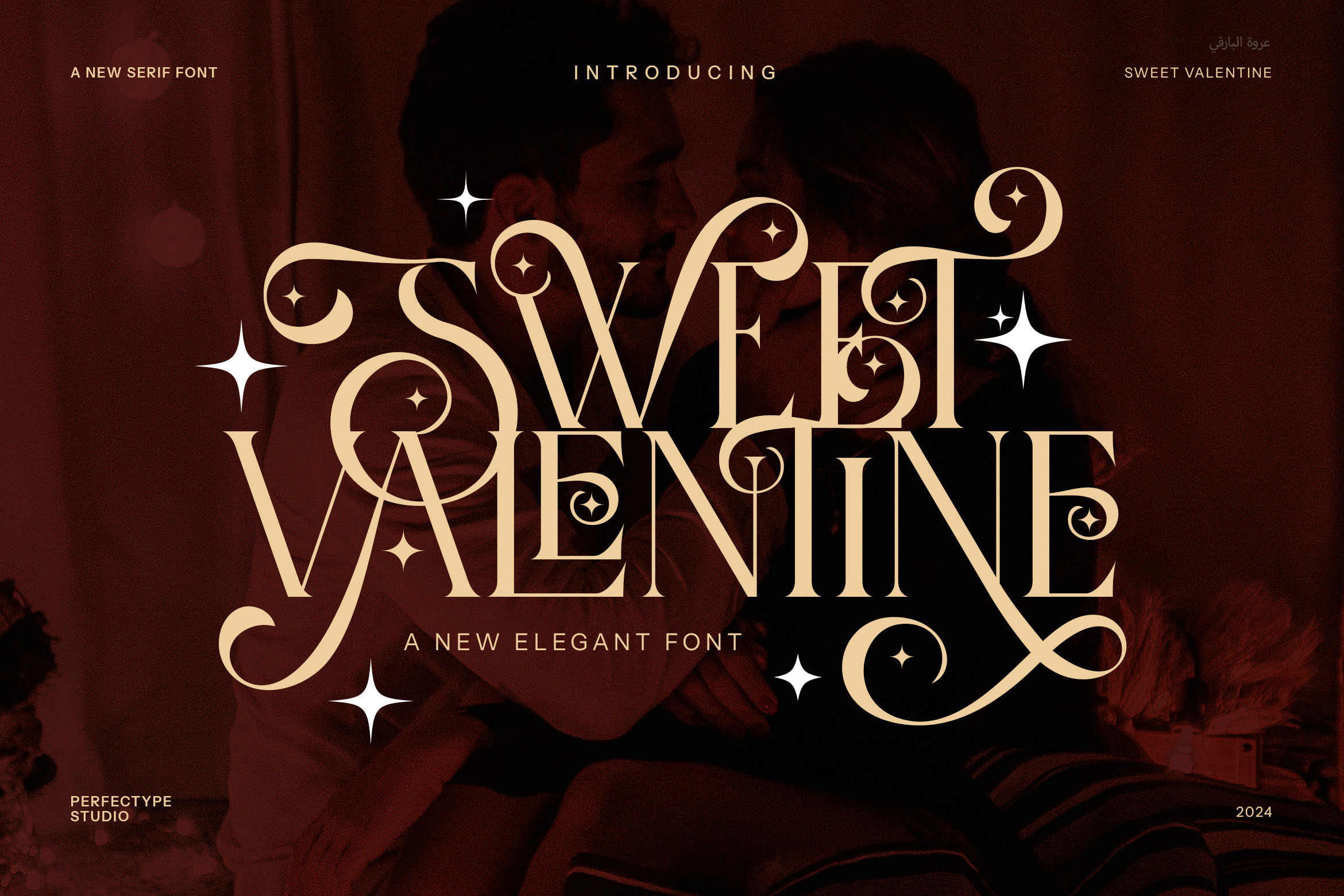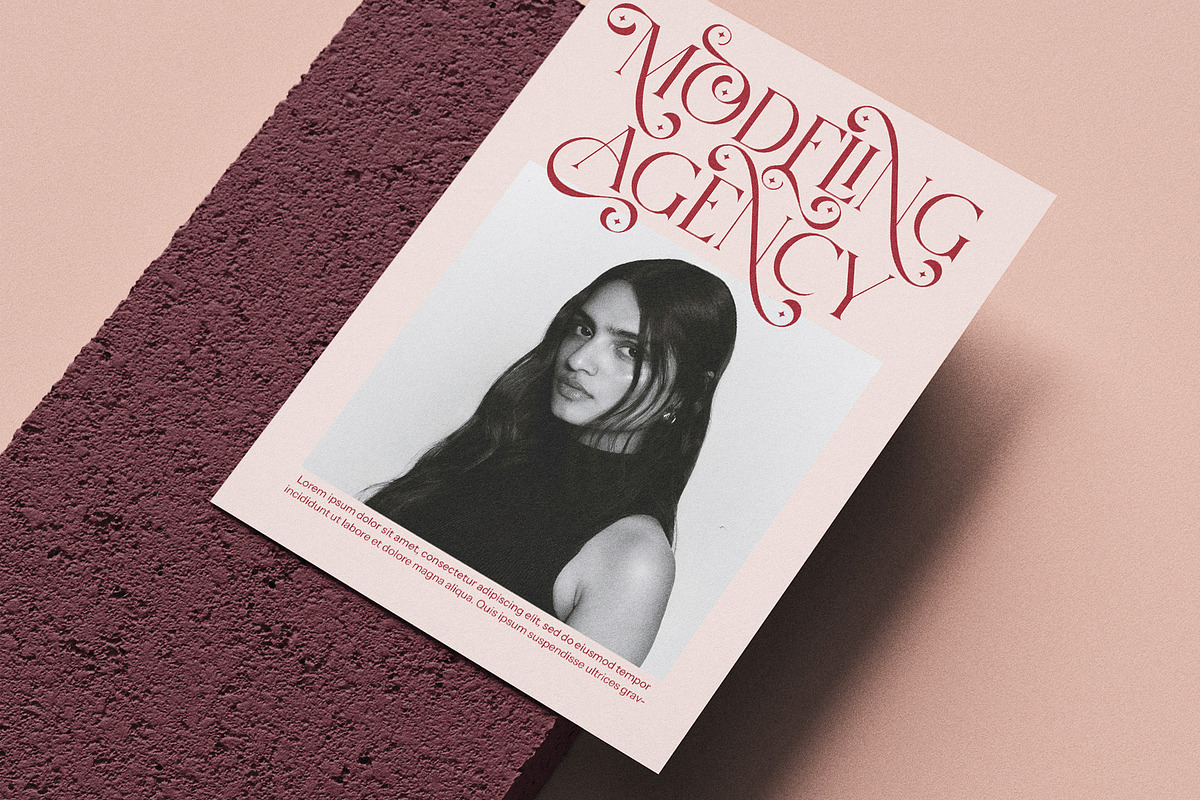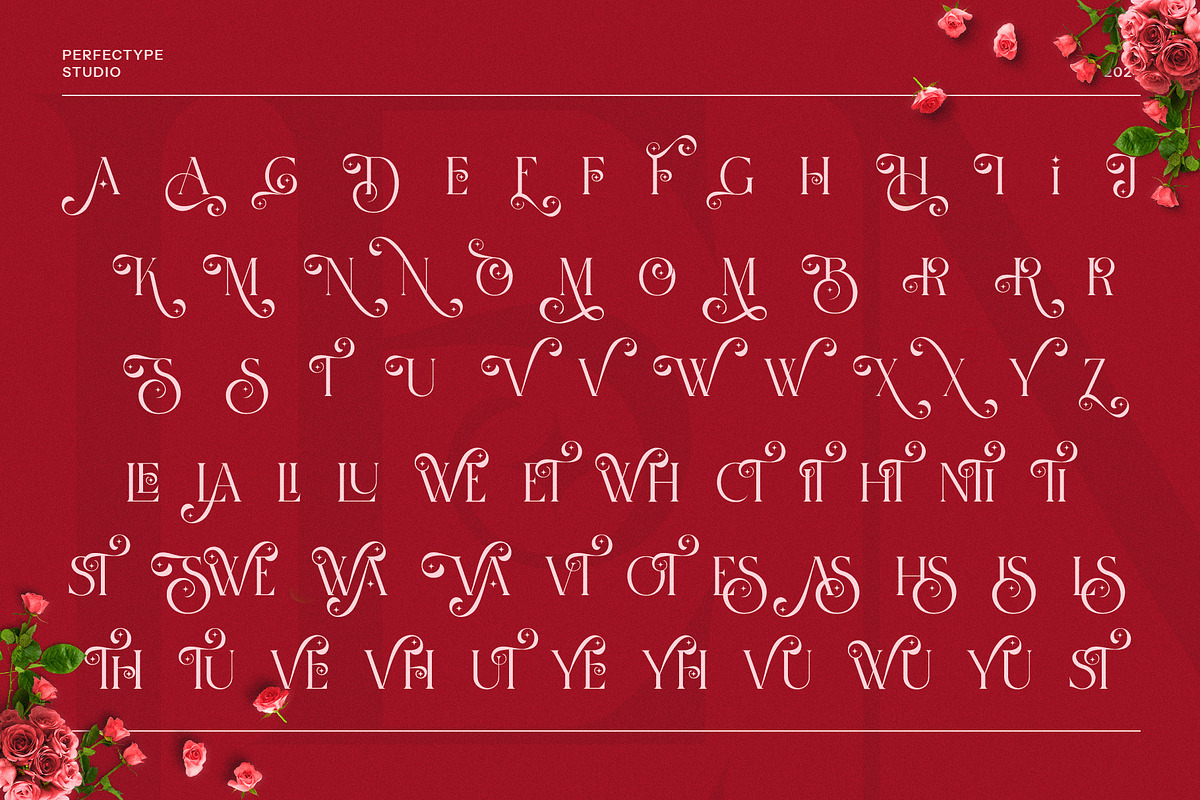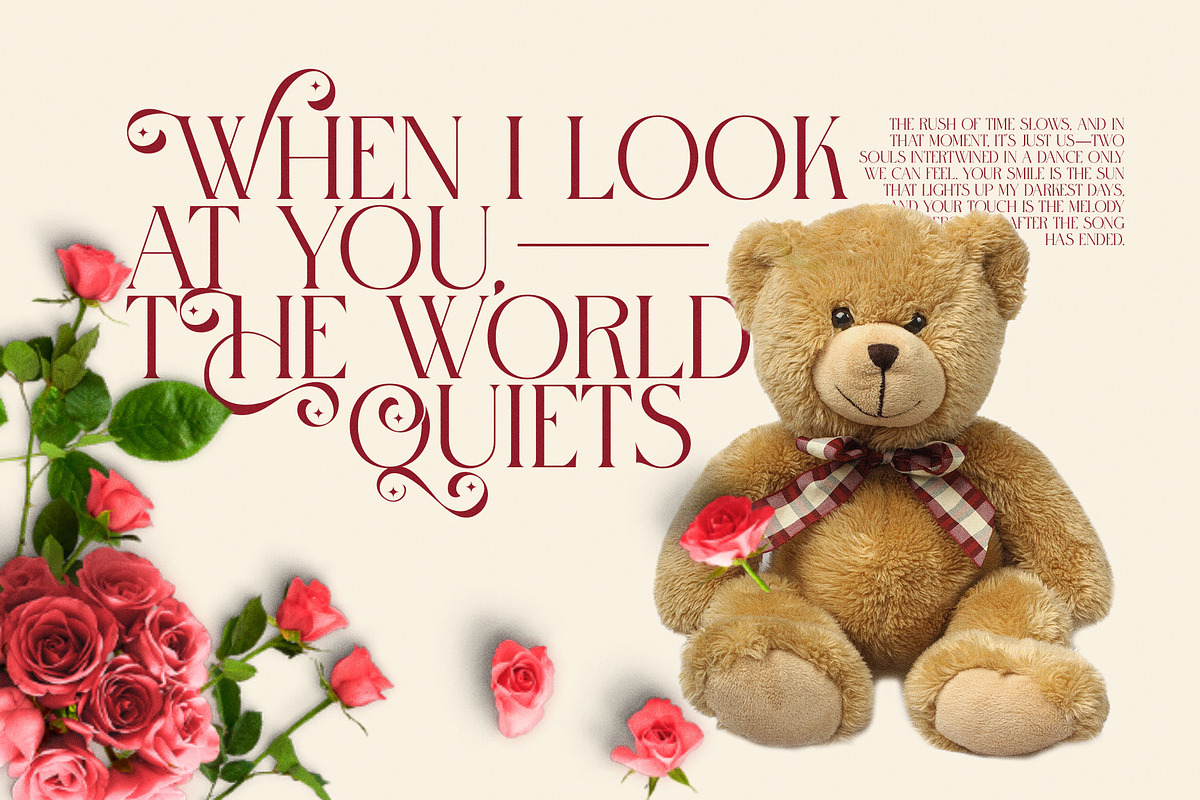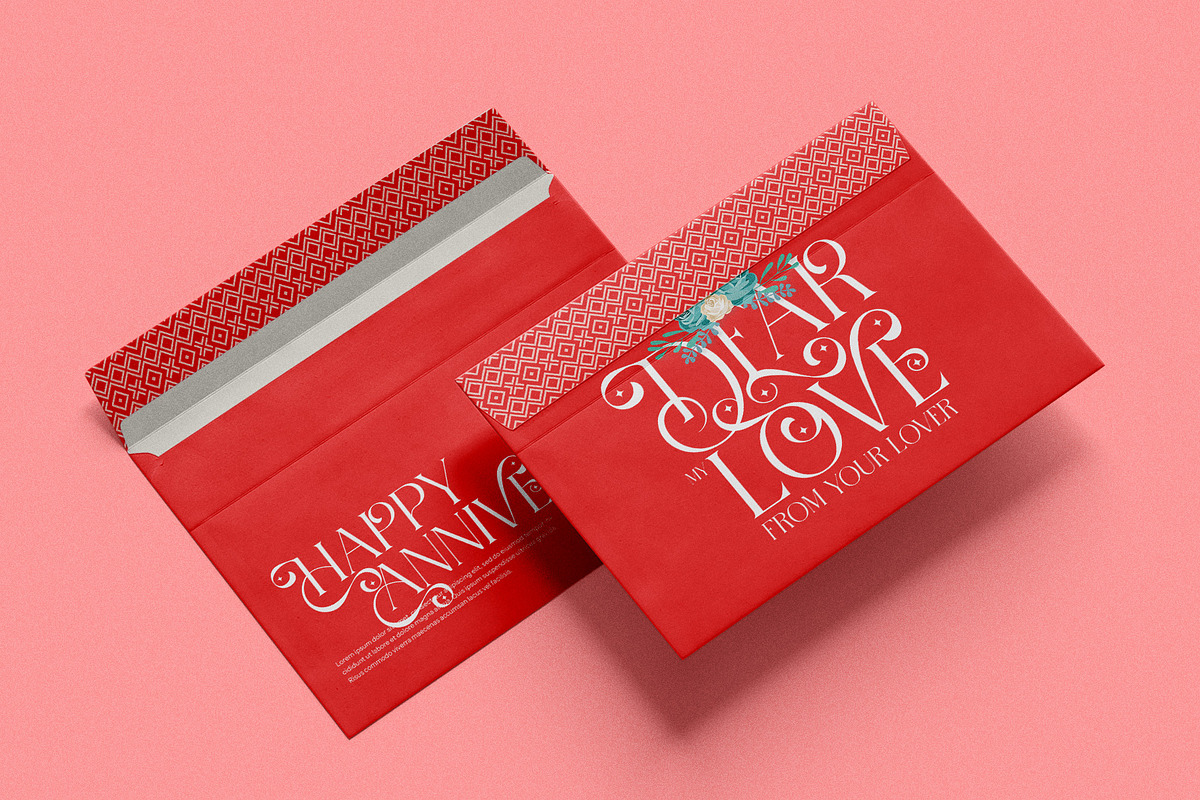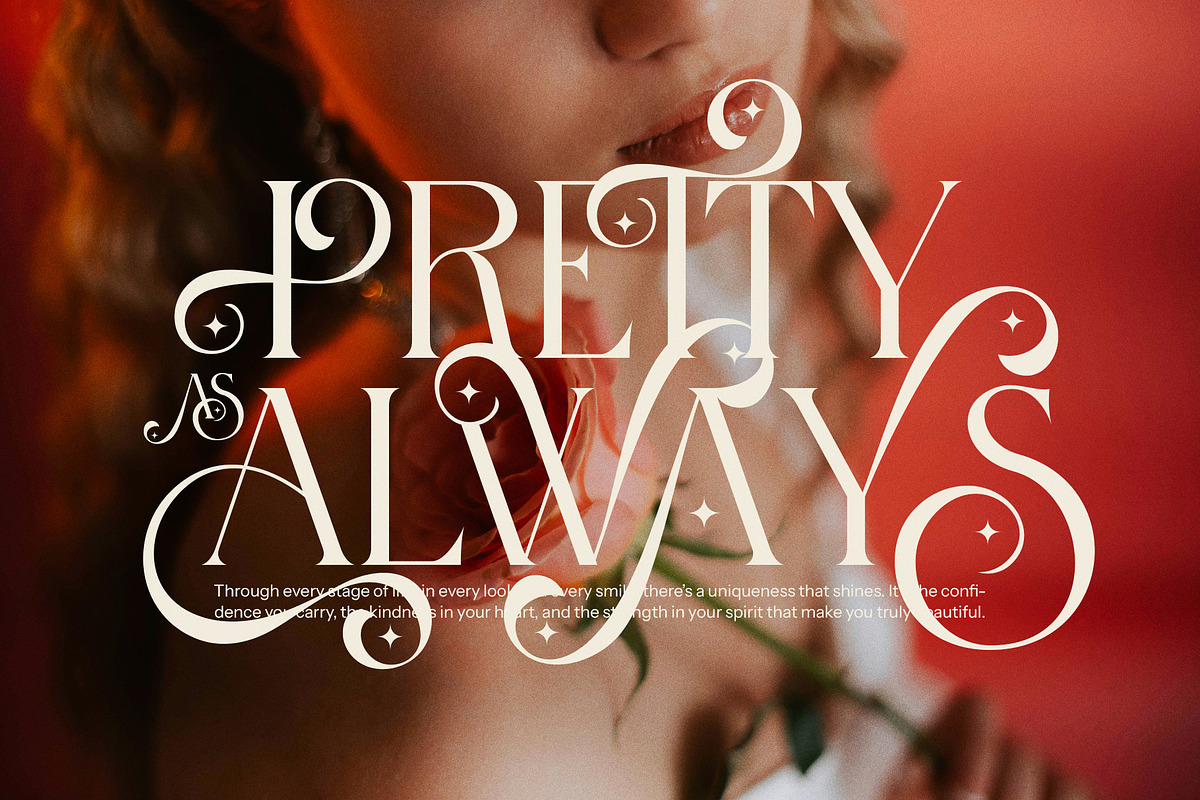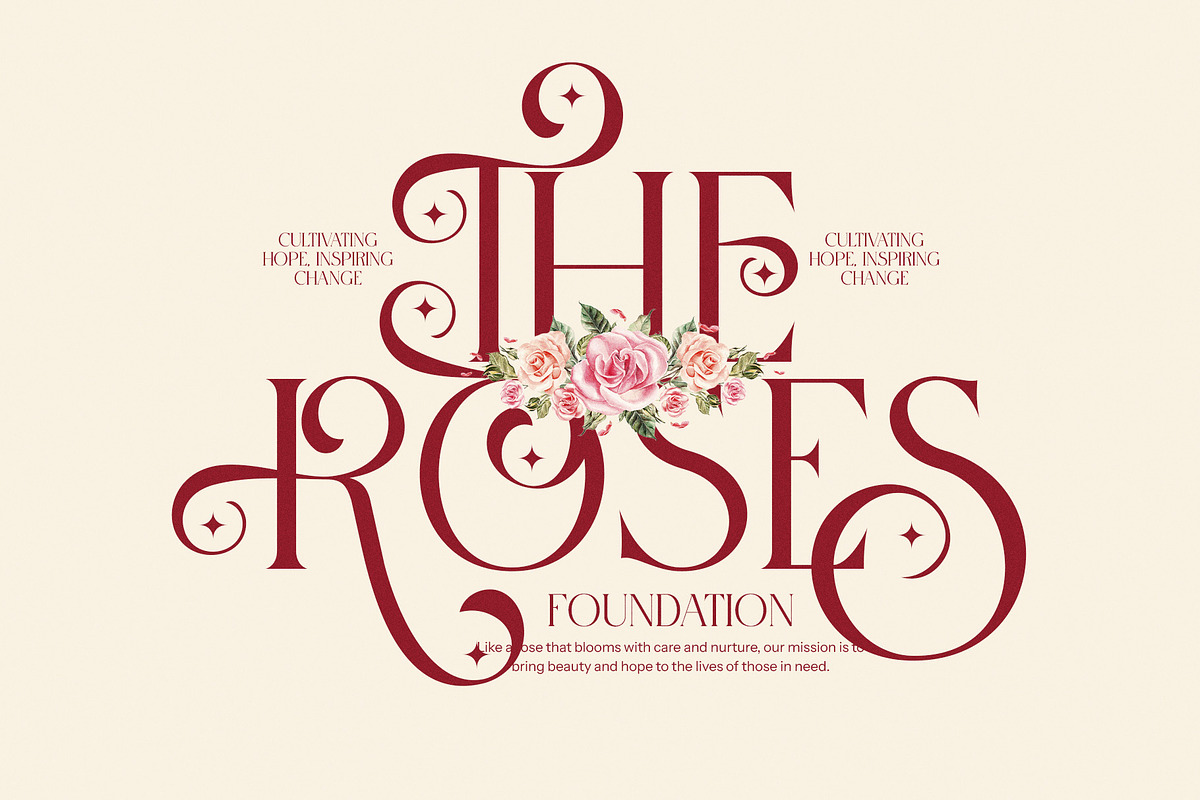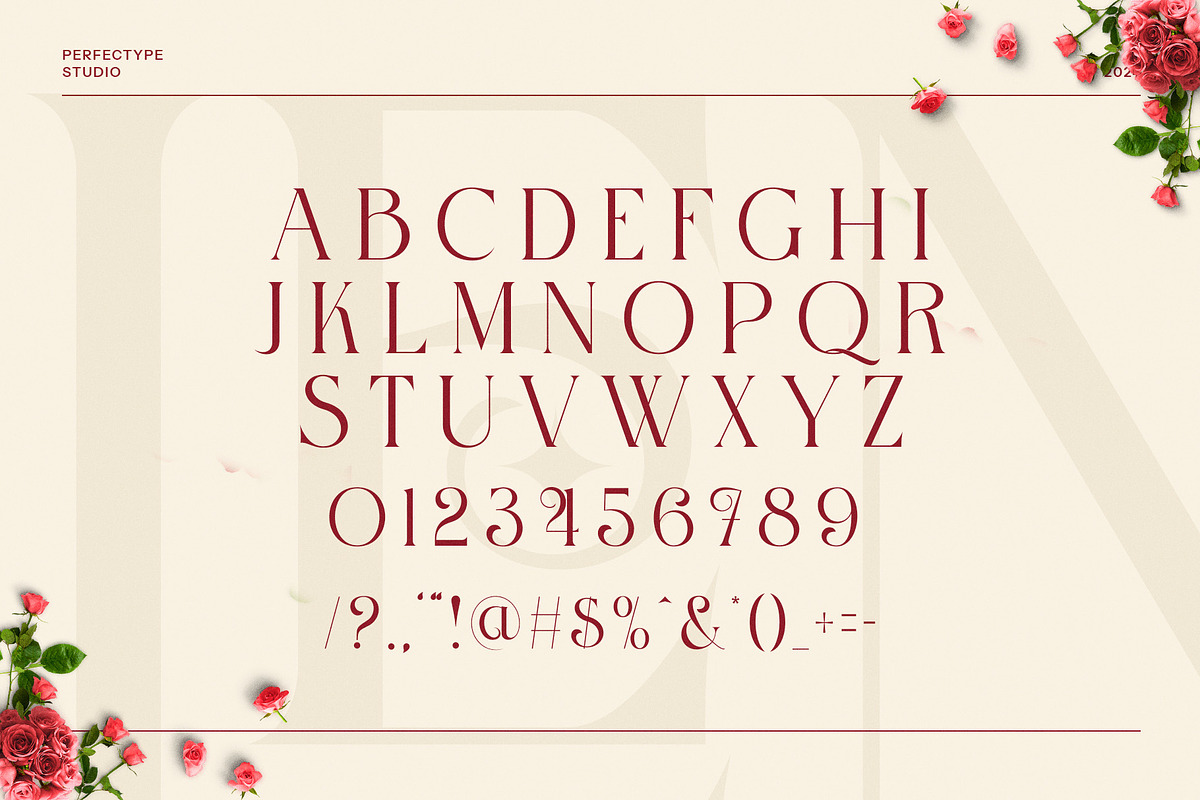
Sweet Valentine Stylish Serif Font
Sweet Valentine Stylish Serif Font is an exquisite and modern serif typeface designed to elevate your creative projects with a touch of sophistication and elegance. This font boasts a stunning blend of classic serif characteristics and contemporary design elements, making it the perfect choice for a wide range of applications. Whether you’re designing a luxurious brand identity, an elegant wedding invitation, or a captivating product label, Sweet Valentine delivers timeless beauty with a modern twist.
With its unique and beautifully crafted ligatures and a variety of calligraphic alternates, this font offers a wealth of design possibilities. The graceful curves and sharp edges of the serifs provide a distinct, refined look that will make your projects stand out with style. Its versatility ensures it shines across various industries, from high-end fashion boutiques and perfume brands to editorial layouts, websites, and social media graphics.
Sweet Valentine’s combination of legibility and charm makes it ideal for logo design, branding, packaging, book covers, posters, magazines, and even advertisements. Its luxurious and delicate appearance captures attention while maintaining readability, allowing it to excel in both print and digital formats.
This font is perfect for creating memorable visual identities and striking designs, making it a must-have for designers seeking an elegant and fashionable serif typeface. Whether you’re working on invitations, events, or any project requiring a touch of class and refinement, Sweet Valentine Stylish Serif Font will ensure your designs leave a lasting impression.